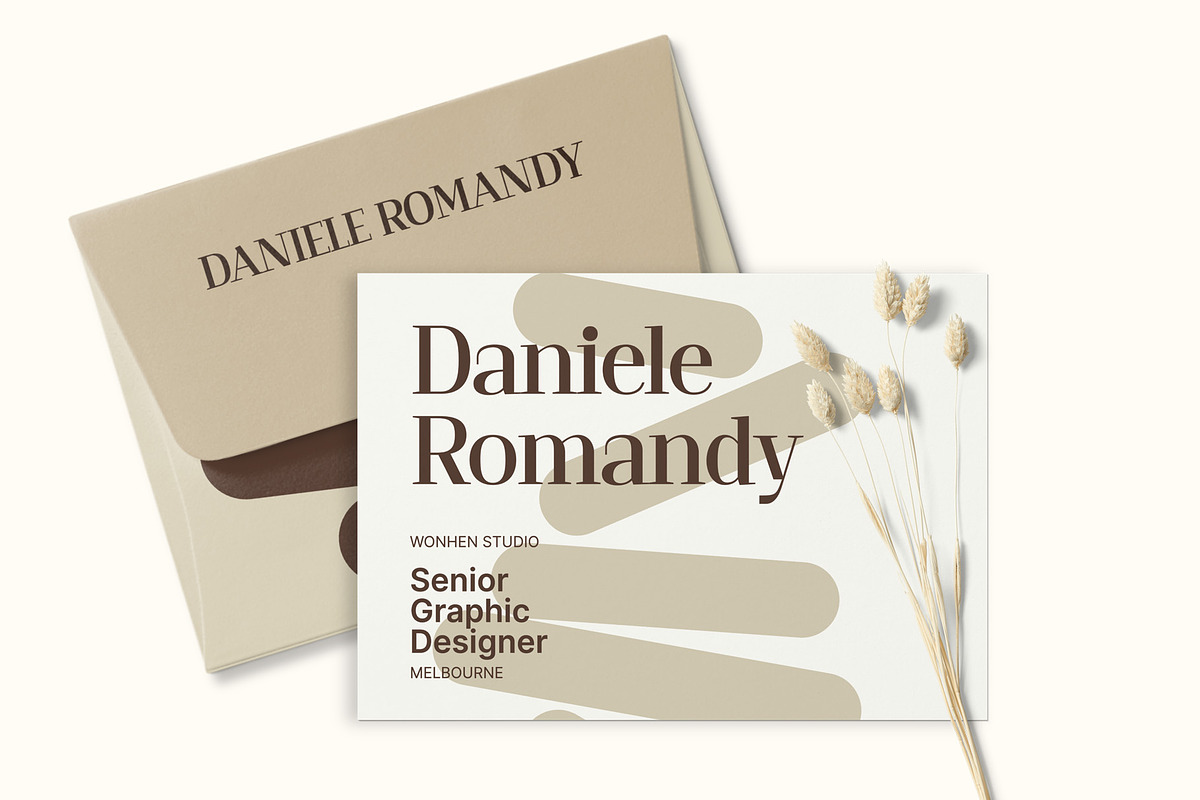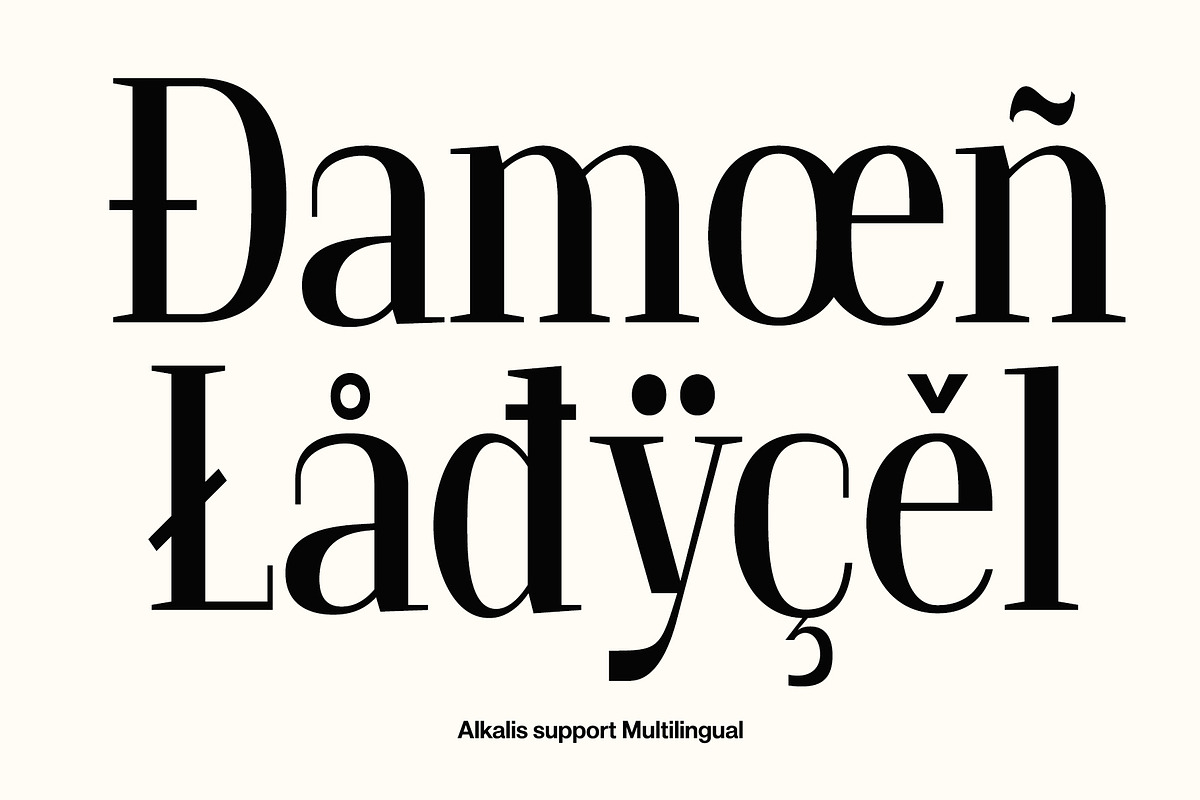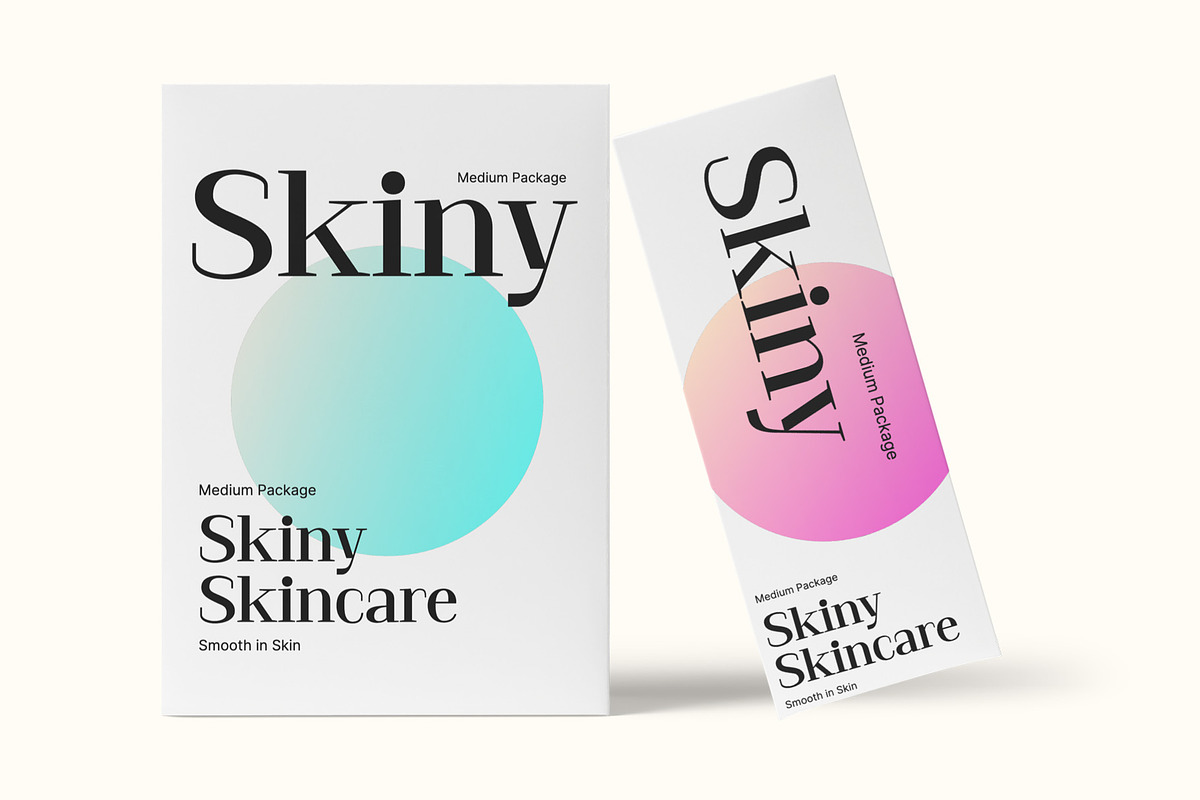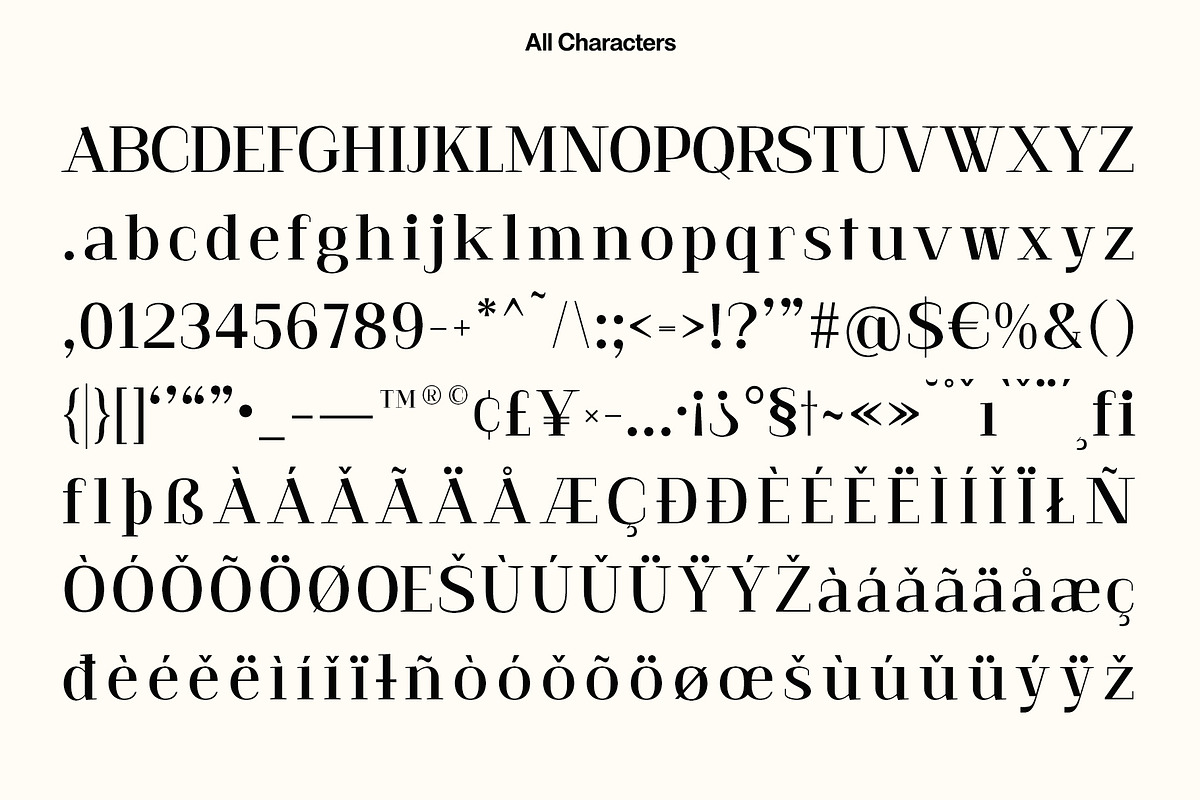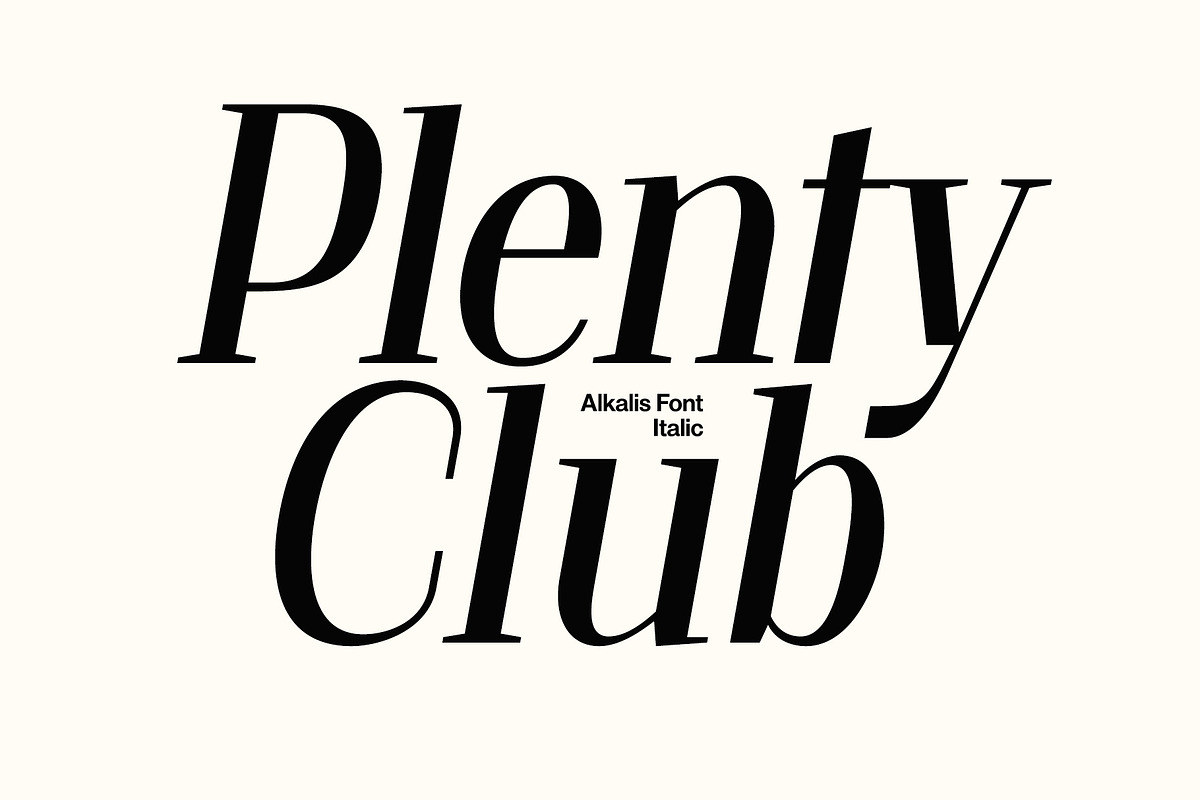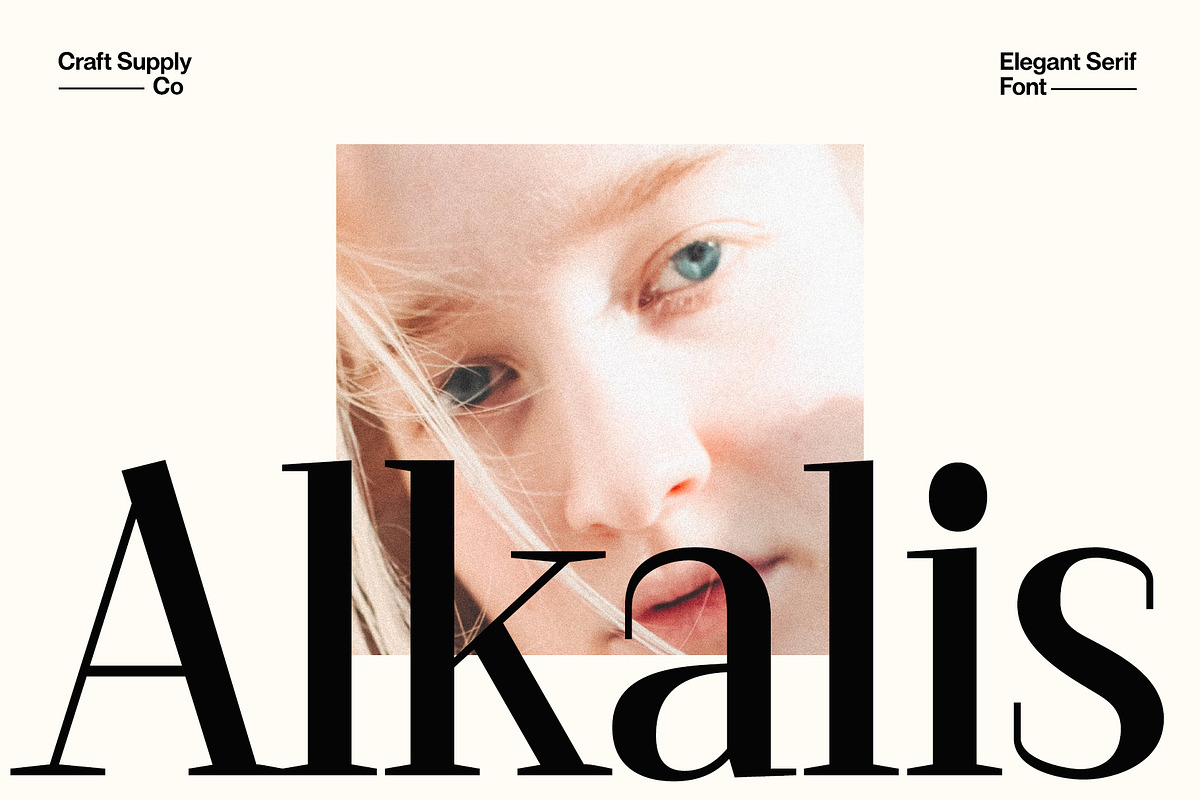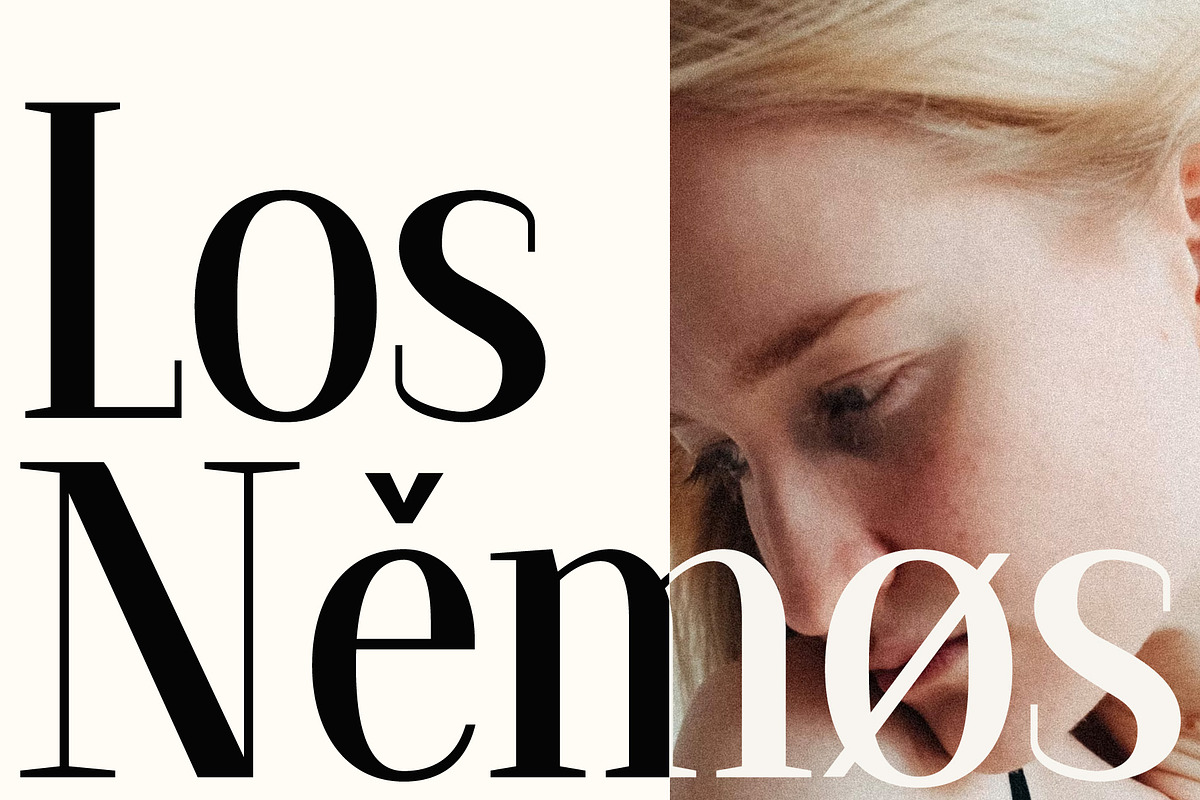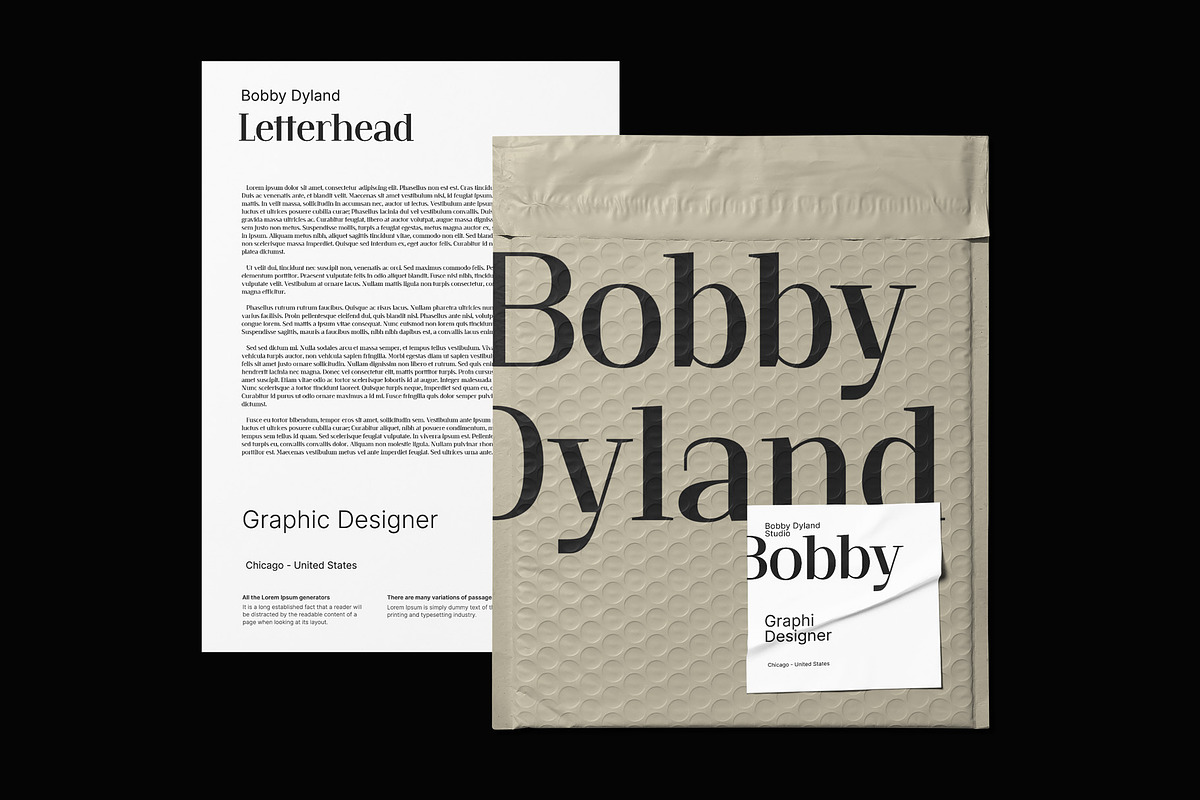
Alkalis – Modern Elegant Serif
Alkalis: Modernity Meets Elegance Meet Alkalis – Modern Elegant Serif, where modern meets timeless. This serif offers the perfect contrast for versatility. It’s crafted for both text and display needs. Alkalis brings a touch of elegance to any project.
Balanced Contrast With Alkalis, experience the ideal balance in font design. The contrast is just right, not too sharp, not too soft. This balance makes it perfect for an array of uses. Plus, it’s designed to be as fitting for body text as it is for headers.
Elegant Versatility This typeface stands out with its elegant, modern serifs. Alkalis transitions smoothly from text to display. It brings sophistication to your content. Moreover, it’s equally at home in print or on your screen.
Ready for Any Task Alkalis is user-friendly, adapting to various design tasks with ease. Its modern elegance lifts up your words. The font works well for long texts and makes titles shine. Furthermore, it leaves a lasting impression with its subtle yet strong character.
- Alkalis Regular
- Alkalis Italic